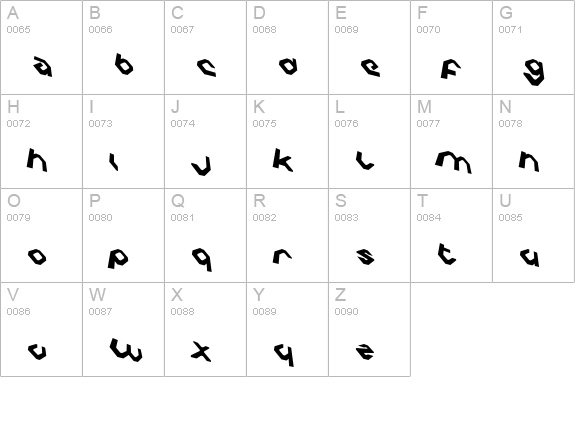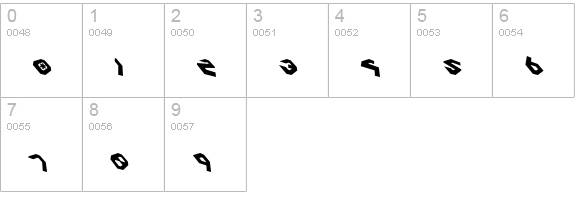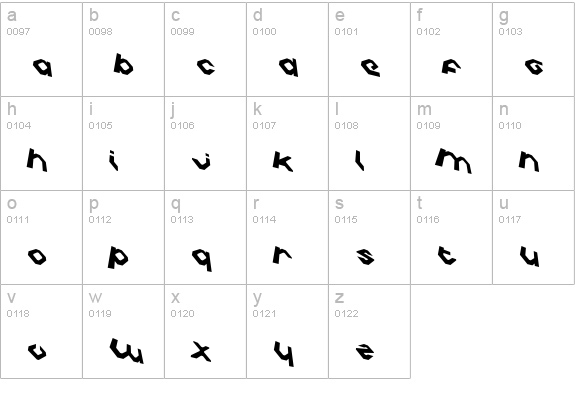
Charlie's Angles Rotate Font Details
Below you can preview Charlie's Angles Rotate in uppercase [A-Z], lowercase [a-z] and numbers [0-9]. You can also read the author's notes and license information before downloading.
"Charlie's Angles Rotate font is a stylish and modern typeface that will add a touch of sophistication to your designs. This font features sleek lines and sharp angles that give it a contemporary edge. With its unique rotation effect, Charlie's Angles Rotate font exudes energy and dynamism, making it perfect for projects that require a bold statement. Best of all, Charlie's Angles Rotate font is available for free download at FontsMarket.com. Whether you're working on a branding project, poster design, or website layout, this font will surely make your text stand out. Don't miss the opportunity to add this eye-catching font to your collection today!"